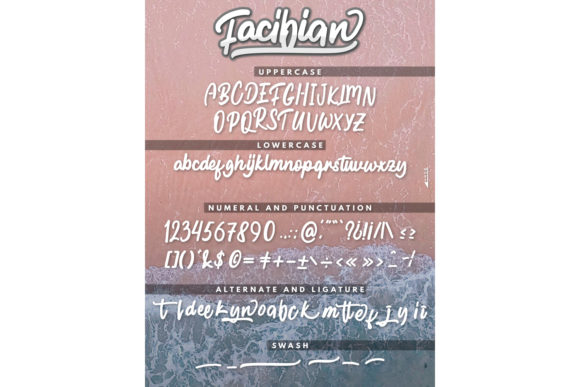
Discover the Charm of Facibian Font: A Sweet and Friendly Handwritten Delight
Are you on the hunt for a font that can add a touch of warmth and personality to your designs? Look no further than Facibian Font, a sweet and friendly handwritten font that’s sure to capture your heart. With its natural and unique style, Facibian is incredibly versatile and can be used in a wide range of designs, from creative projects to commercial endeavors. The only limit is your imagination!
The Characteristics of Facibian Font
Facibian Font boasts a distinctive handwritten style that’s both elegant and approachable. Its flowing lines and curves give it a natural, organic feel that’s perfect for creating a sense of warmth and connection with your audience. Whether you’re designing a logo, a poster, or a digital product, Facibian Font is sure to bring a smile to your face and a touch of personality to your work.
One of the standout features of Facibian Font is its uniqueness. In a world where fonts can often feel generic and overused, Facibian stands out from the crowd with its own special charm. Its characters are carefully crafted to create a sense of movement and fluidity, making it perfect for designs that need a bit of energy and dynamism.
What Makes Facibian Font So Versatile?
So, what makes Facibian Font so versatile? For starters, its handwritten style makes it perfect for a wide range of design applications, from:
- Creative projects, such as art journals, scrapbooking, and mixed media
- Commercial endeavors, such as branding, advertising, and packaging
- Digital products, such as ebooks, courses, and social media graphics
- Stationery and paper crafts, such as cards, invitations, and journals
But Facibian Font’s versatility doesn’t stop there. Its unique style also makes it perfect for:
- Adding a personal touch to your designs
- Creating a sense of warmth and connection with your audience
- Standing out from the crowd in a crowded market
- Adding a bit of whimsy and personality to your work
Tips for Using Facibian Font in Your Designs
So, how can you get the most out of Facibian Font in your designs? Here are a few tips to get you started:
- Experiment with different sizes and colors to create visual interest
- Pair Facibian Font with other fonts to create a unique and eye-catching combination
- Use Facibian Font to add a personal touch to your designs, such as in a quote or a testimonial
- Don’t be afraid to get creative and try new things – Facibian Font is all about experimentation and self-expression!
In conclusion, Facibian Font is a sweet and friendly handwritten font that’s sure to bring a touch of warmth and personality to your designs. With its natural and unique style, Facibian is incredibly versatile and can be used in a wide range of design applications. Whether you’re a designer, crafter, or DIY enthusiast, Facibian Font is a must-have addition to your font collection. So why wait? Download Facibian Font today and start creating your own unique and eye-catching designs!